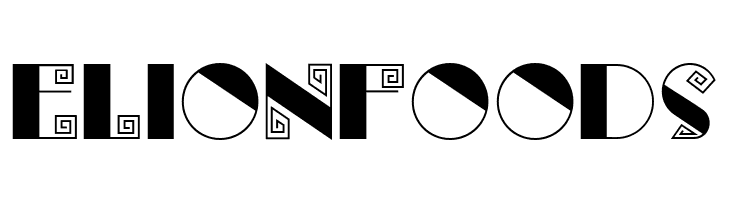
A bold, geometric font with strong outlines and a modern, dynamic style.
Retro geometric logotypes and emblems with bold, high-contrast lines.
A bold, blackletter-inspired font with sharp, angular lines and historical flair.
A bold, blackletter font with sharp, angular lines and intricate detailing.
A bold, geometric font with art deco influences and angular letterforms.
An ornate Blackletter font with bold, angular strokes and decorative flourishes.
An ornate, historical script with intricate flourishes and a calligraphic style.
A bold, 3D geometric font with a modern and dynamic appearance.
A modern, italicized sans-serif font with smooth curves and consistent stroke width.
A modern, rounded sans-serif font with excellent readability and a friendly appearance.
A modern, rounded sans-serif font with uniform strokes and balanced spacing.
An ornate and decorative font with intricate letterforms.
A bold Blackletter font with dramatic, angular strokes and a medieval aesthetic.
A bold, three-dimensional font with geometric precision and strong outlines.
A bold, slab serif font with thick, uniform strokes and rounded edges.
A monospaced font with slab serif elements, offering a structured and uniform appearance.
A bold, italic serif font with rounded serifs and moderate contrast.
A monospaced, typewriter-inspired font with a slight slant and low contrast.
A bold, dynamic font with sharp, angular lines and a modern flair.
A bold, italicized font with a dynamic, hand-drawn style.
A dynamic, italic font with sharp, angular strokes and high contrast.
A sharp, angular, and artistic font with a calligraphic flair.
A bold, geometric font with angular lines and a blocky appearance.
A bold, 3D shadow font with a geometric and angular design.
A bold, dynamic font with rounded, smooth curves and a slight slant.
A bold, angular blackletter font with a Gothic, medieval aesthetic.
A bold, angular blackletter-inspired font with a modern twist.
A traditional blackletter font with ornate, medieval-style letterforms.
An ornate Blackletter font with intricate details and an italic style.
A bold, ornate blackletter font with sharp, angular letterforms.
A Gothic-inspired font with intricate, angular strokes and a medieval essence.
A modern, artistic font with horizontally split characters and bold strokes.
A clean, modern sans-serif font with uniform strokes and geometric influences.